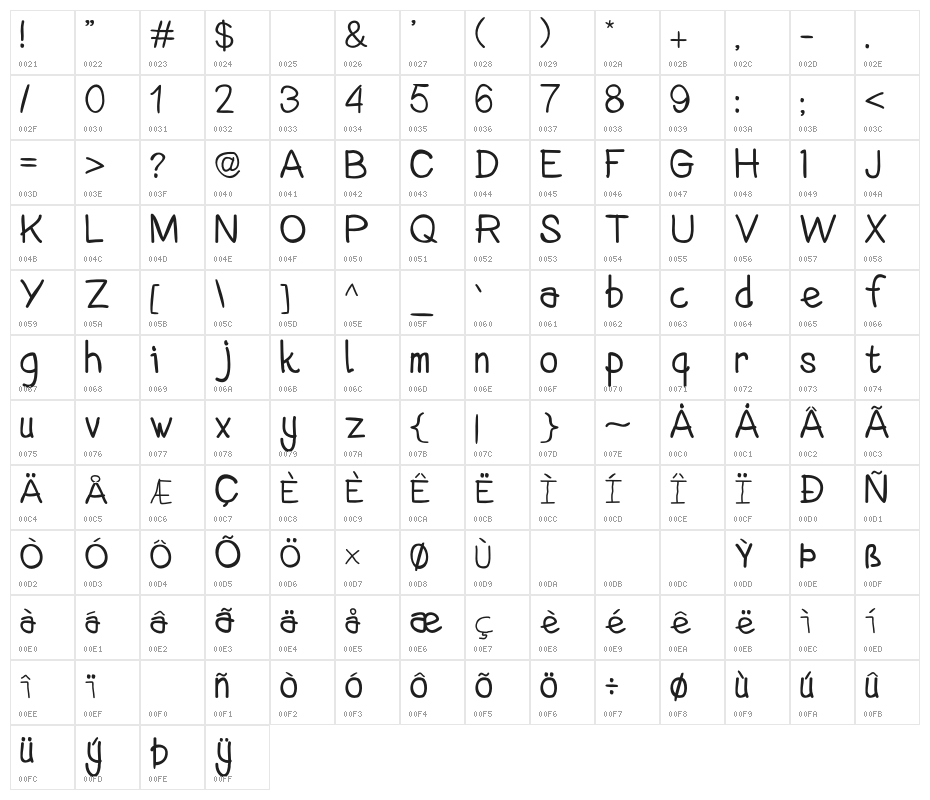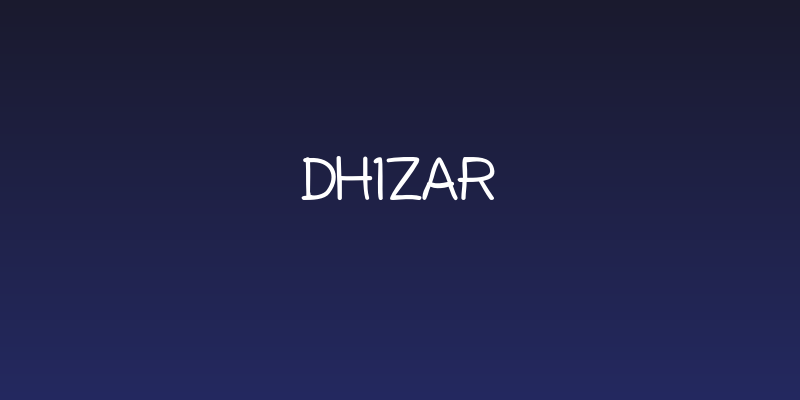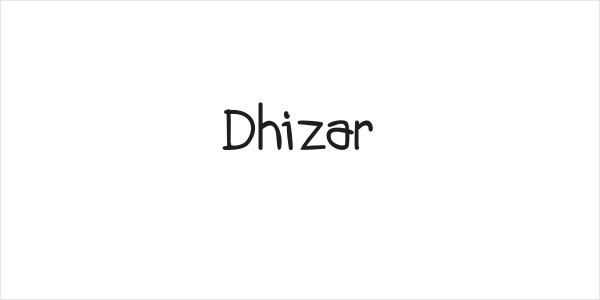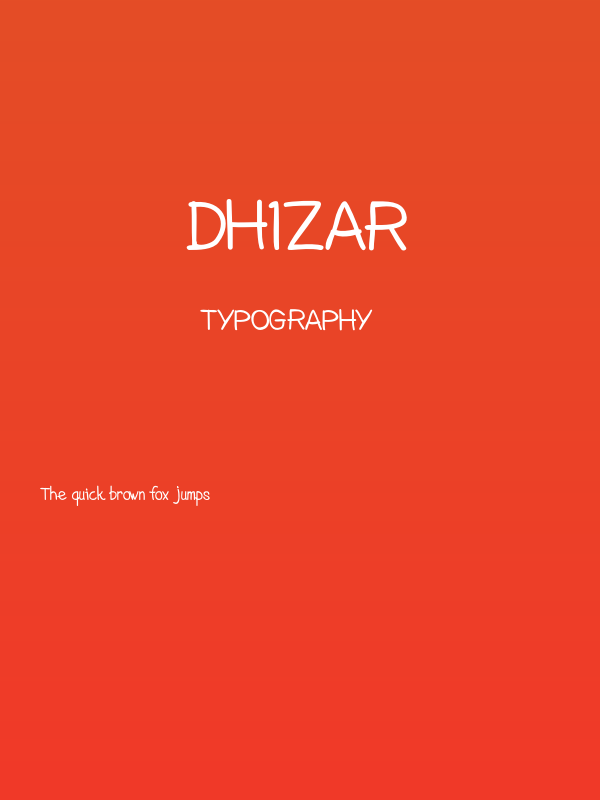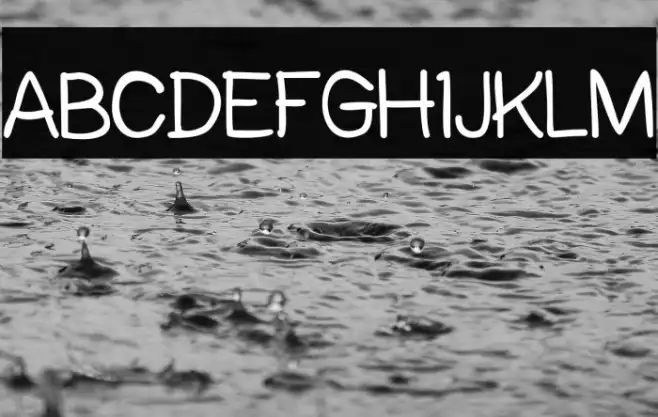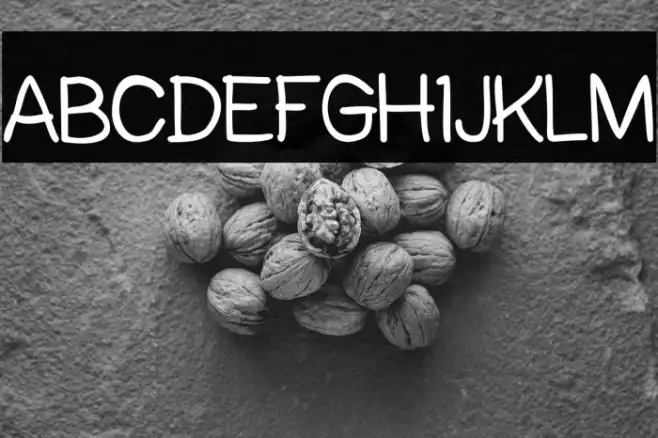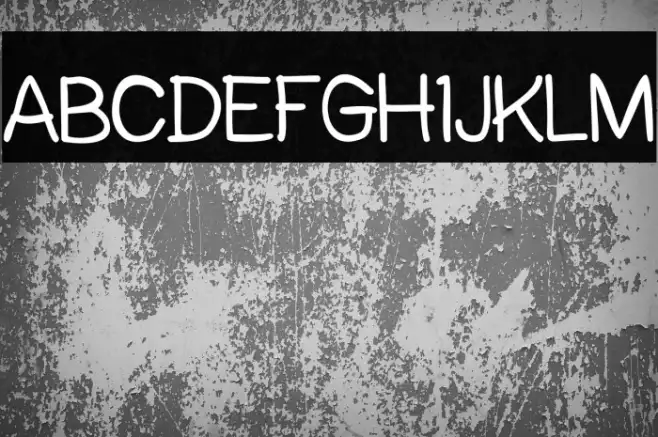
Dhizar Font
Dhizar Description
This playful and whimsical font features a handwritten style with a casual and friendly appearance. The characters are rounded and slightly irregular, giving it a charming and approachable feel. The uppercase and lowercase letters maintain a consistent style, with smooth curves and a moderate stroke width. Numbers and special characters are designed to match the overall aesthetic, making it versatile for various uses. The font's informal nature makes it suitable for projects that require a personal touch or a fun, lighthearted vibe.
| Use Case | Headlines, Informal text, Branding |
| Proposed Projects | Ideal for children's books, greeting cards, casual invitations, and playful branding. |